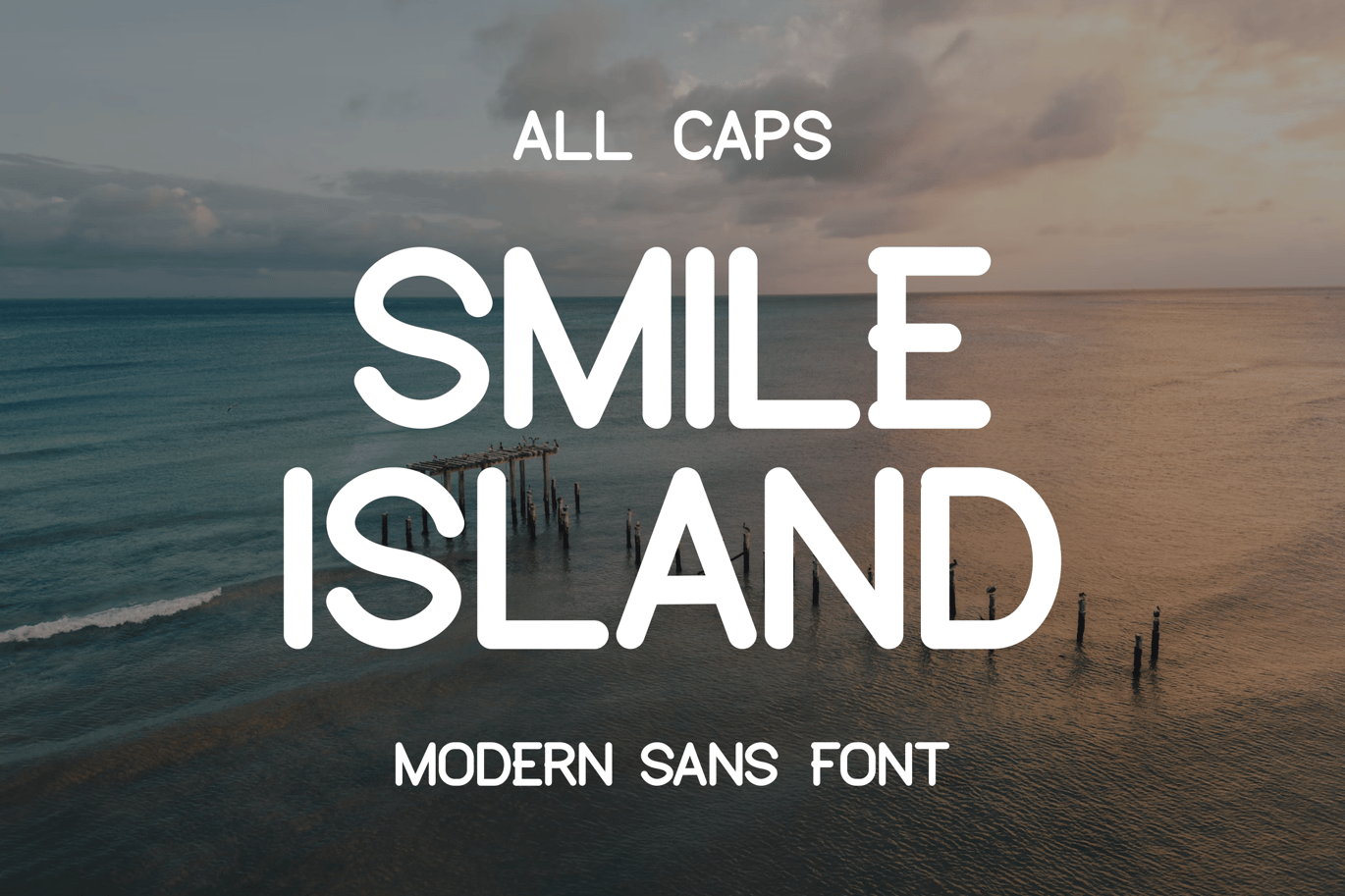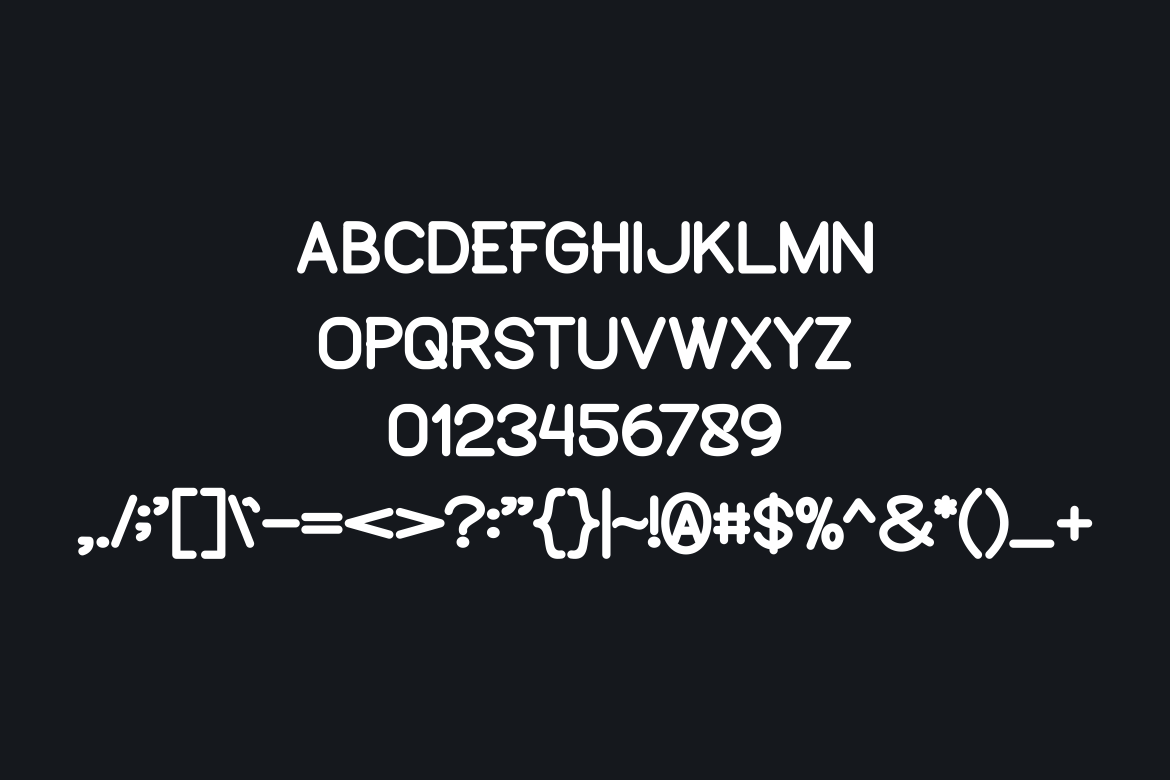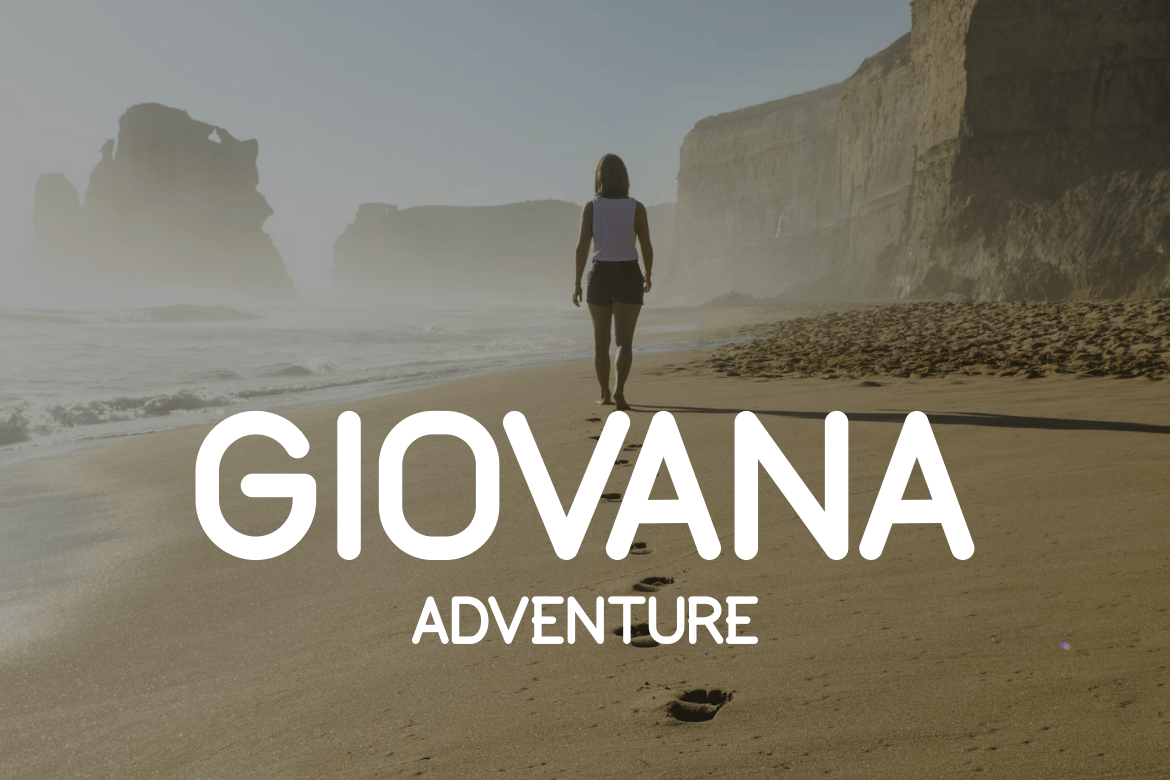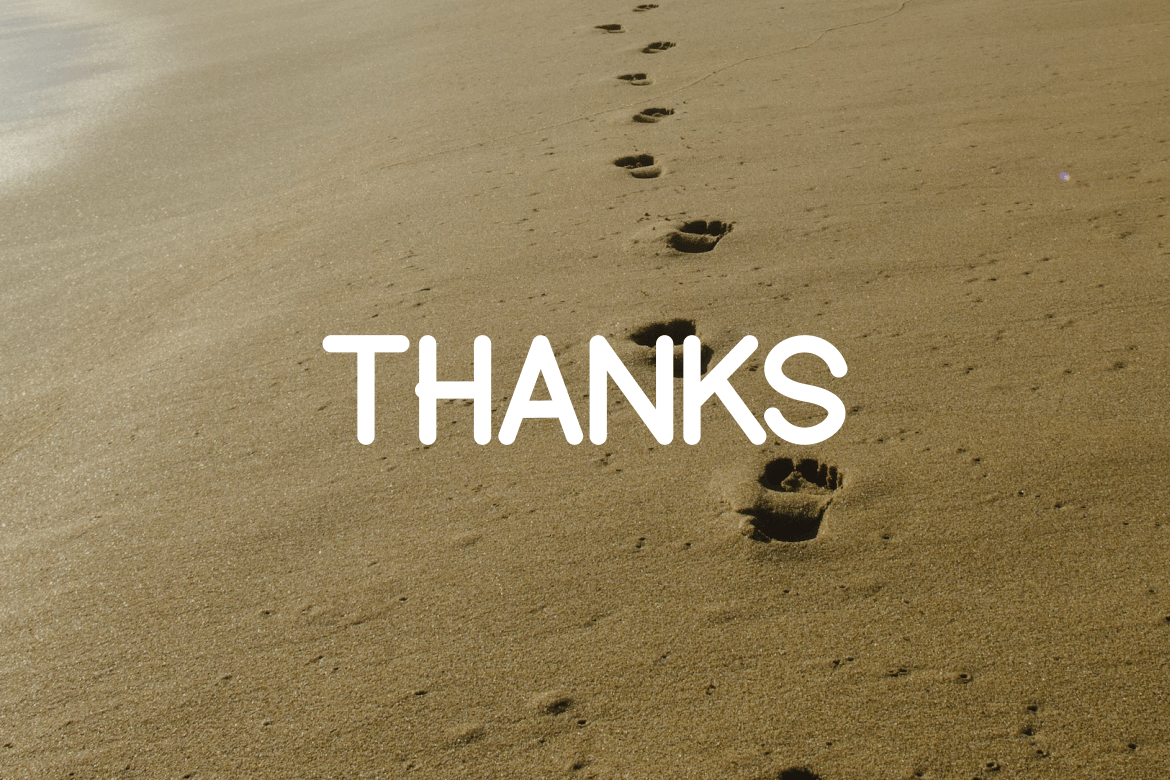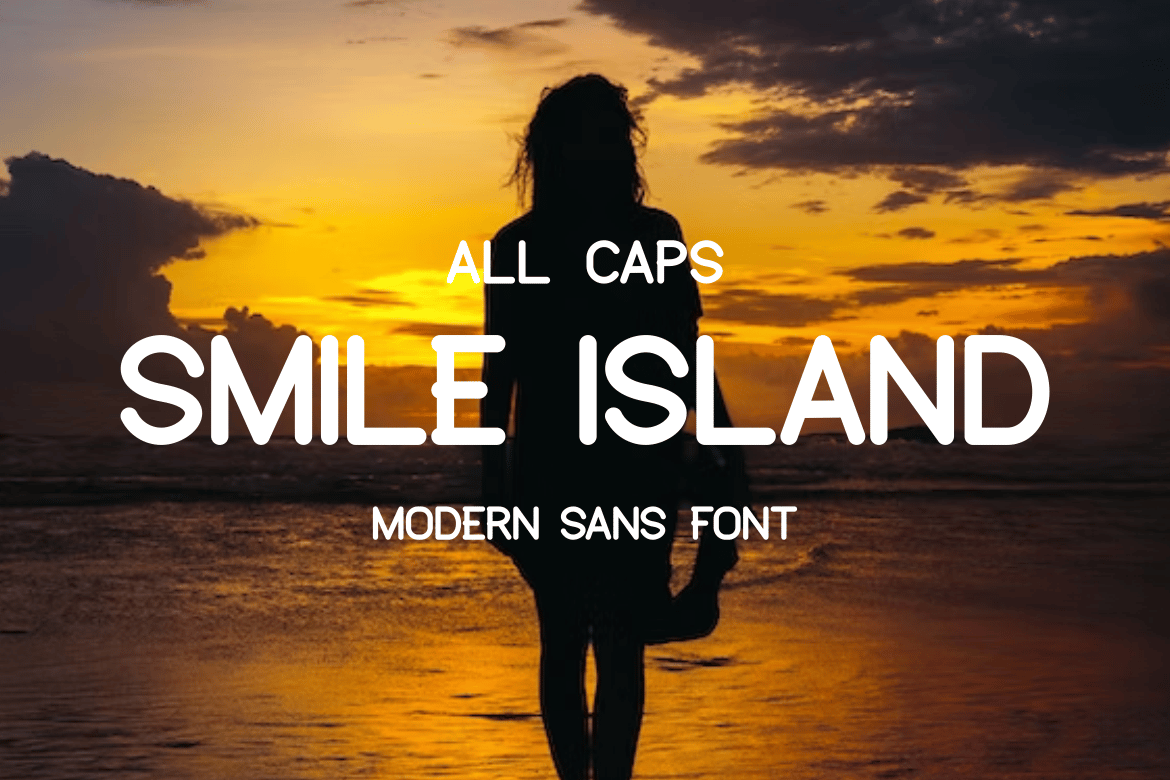
SmileIsland – Modern Font
Introducing our new product *SmileIsland – Modern Font Modern Font
SmileIsland – Modern Font – Modern Font is a bold and authentic display font. The font is suitable for any branding project like logo, t-shirt printing, esport, and many more. outstanding in a wide range of contexts.